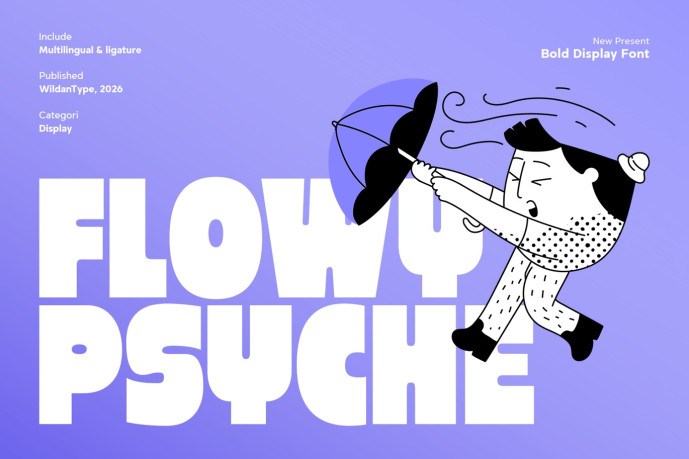
Flowy Psyche Font
Designer: wildantype
Flowy Psyche Font – Bring the soul of the 70s back to your designs with our retro psychedelic display font! Inspired by the vibrant music posters and pop culture of the 1970s, this font features bold curves, large characters, and a captivating fluidity.
Flowy Psyche isn’t just a typeface; it’s a visual statement. With its ultra-bold weight and artistic “liquefied” notches, your projects will instantly exude an authentic, vintage, groovy energy.